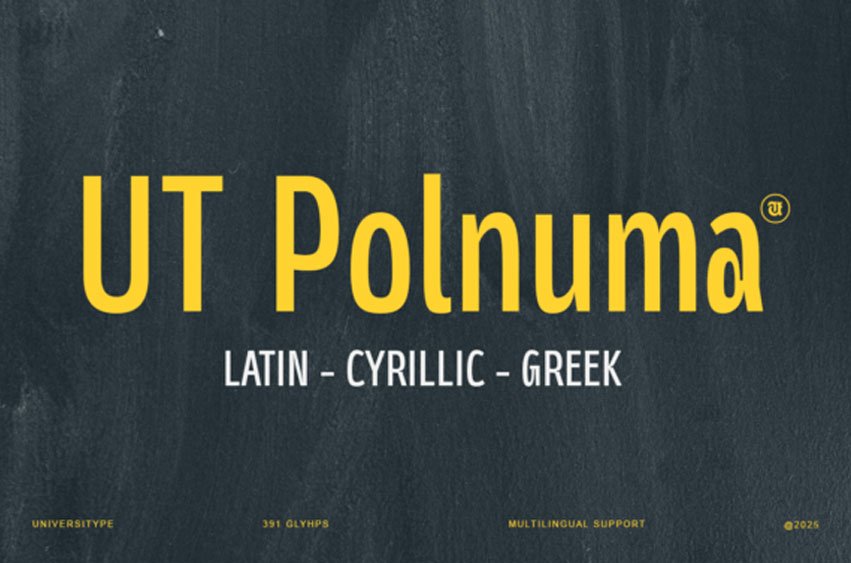
Ut Polnuma Font is a modern sans-serif typeface with a unique blend of opacity and transparency. Designed for clarity and legibility, it works beautifully in both digital and print. Its clean lines and geometric balance make it perfect for branding, advertising, editorial design, and web typography.
Inspired by modern geometric typefaces, UT Polnuma strikes the perfect balance between classic simplicity and contemporary style, with an “unfinished” artistic touch. Its open counters and clear letter distinctions ensure excellent readability.
From professional branding and editorial layouts to clean, modern web design and eye-catching ads, UT Polnuma delivers style, versatility, and impact.